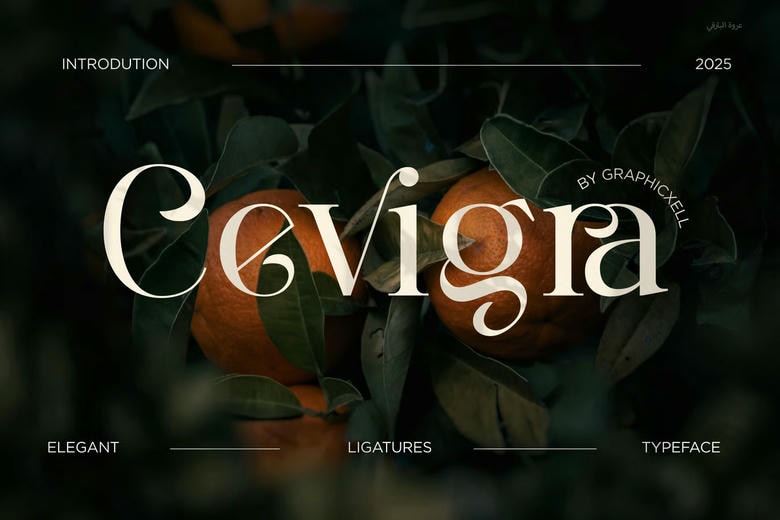
Cevigra Font
Cevigra Elegant Serif Font is a contemporary elegant typeface with class to your projects. It has elegant letterforms and proportional shapes, and can be used in a very diverse number of designs. No matter whether you do work on higher facilities branding of the company, packaging of the products, or the web-site content, Cevigra builds the feeling of elegance and professional aftertaste of your work.
Functional ligatures are also provided in this font and besides enhancing the flow of text, they are used to make your designs attractive and refined. The ligatures enable the smooth flow of characters which make the text look continuous and attractive. Cevigra will be good in the print as well as the digital versions whereby proper readability and style are attained on all mediums.
Cevigra Serif Font